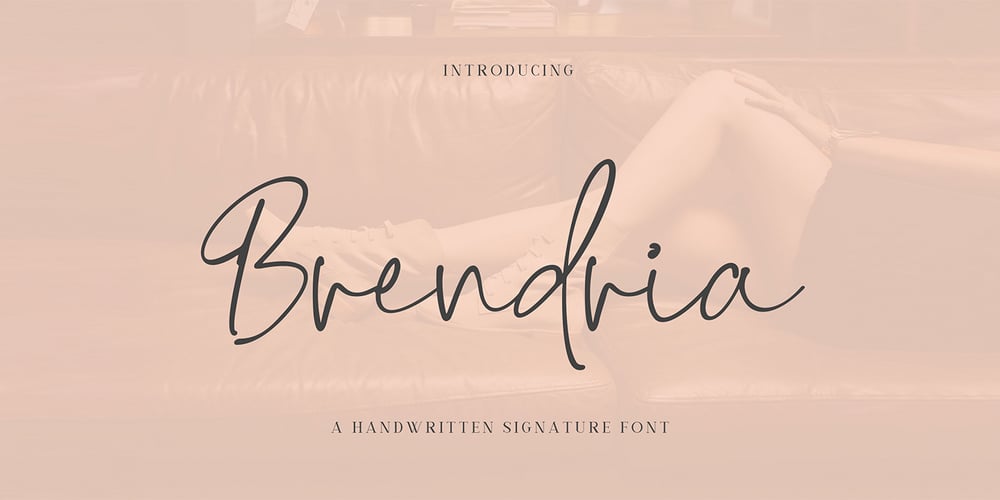
Brendria Signature
Brendria Signature font
Brendria Signature Font Family was designed by Yahdi Kumala and published by Rometheme. Brendria Signature contains 1 styles and family package options. Brendria – Signature is a handwritten signature script font, this font looks classy, luxury, elegant, romantic, wedding, lovely, girly and awesome.Highlights: Standard glyphs (Uppercase, Lowercase, Numeral & Punctuation) Work on PC or Mac PUA Encoded Support Fonts include multilingual support for; ä ö ü Ä Ö Ü ß ¿ ¡ No special software is required, The fonts can be opened and used in Adobe Illustrator, Adobe Photoshop, Adobe InDesign, even work on Microsoft Word.